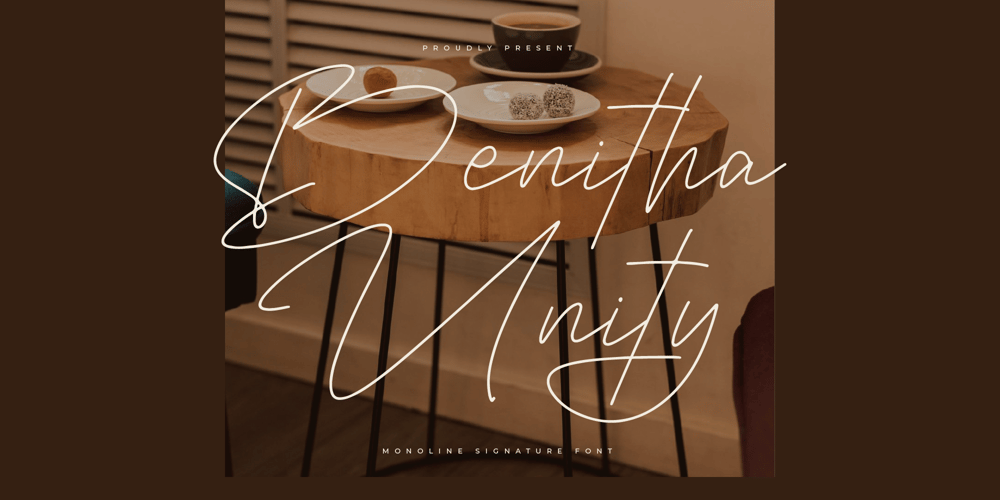
Benitha Unity
Benitha Unity font
Benitha Unity Font Family was designed by Heru Utama Putra and published by Letterena Studios. Benitha Unity contains 2 styles and family package options. Benitha Unity – Monoline Signature Script , from Letterena, is a Luxury Script font, suitable for any projects such as: logos, branding projects, homeware designs, product packaging, mugs, quotes, posters, shopping bags, t-shirts, book covers, name card, invitation cards, greeting cards, label, photography, watermark, special events, and all your other luxury and beautiful projects that need a Luxury Script taste.